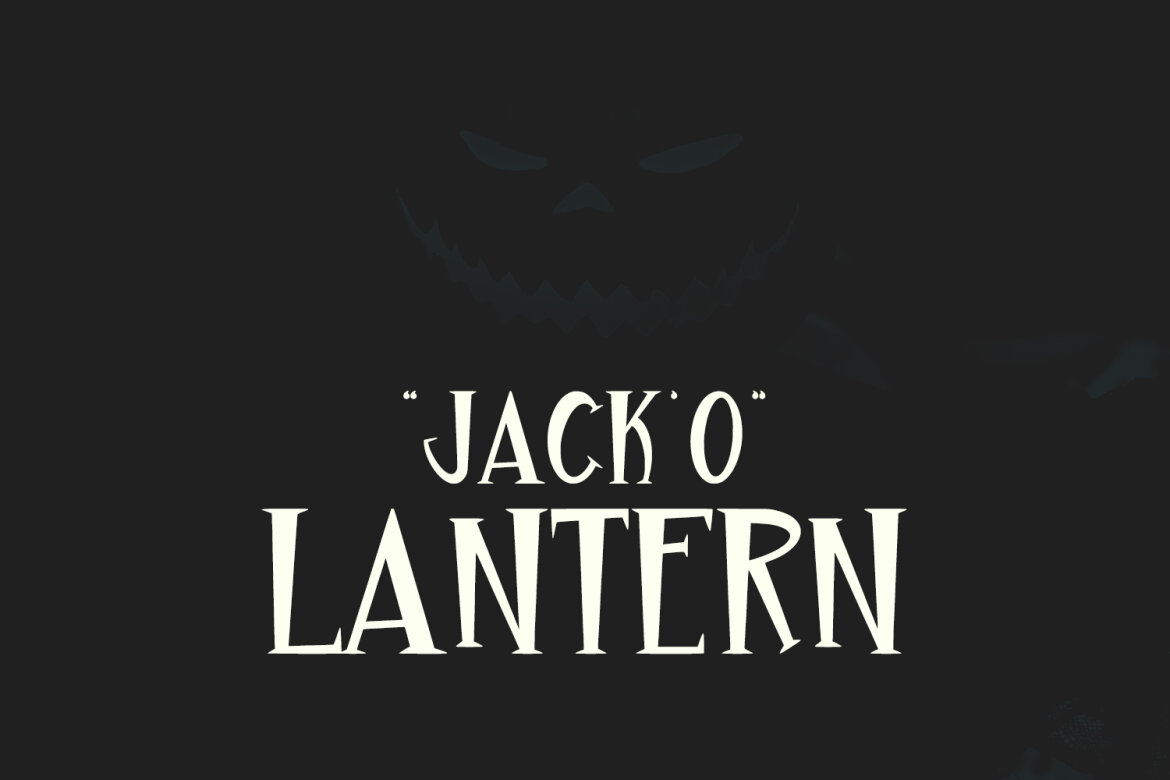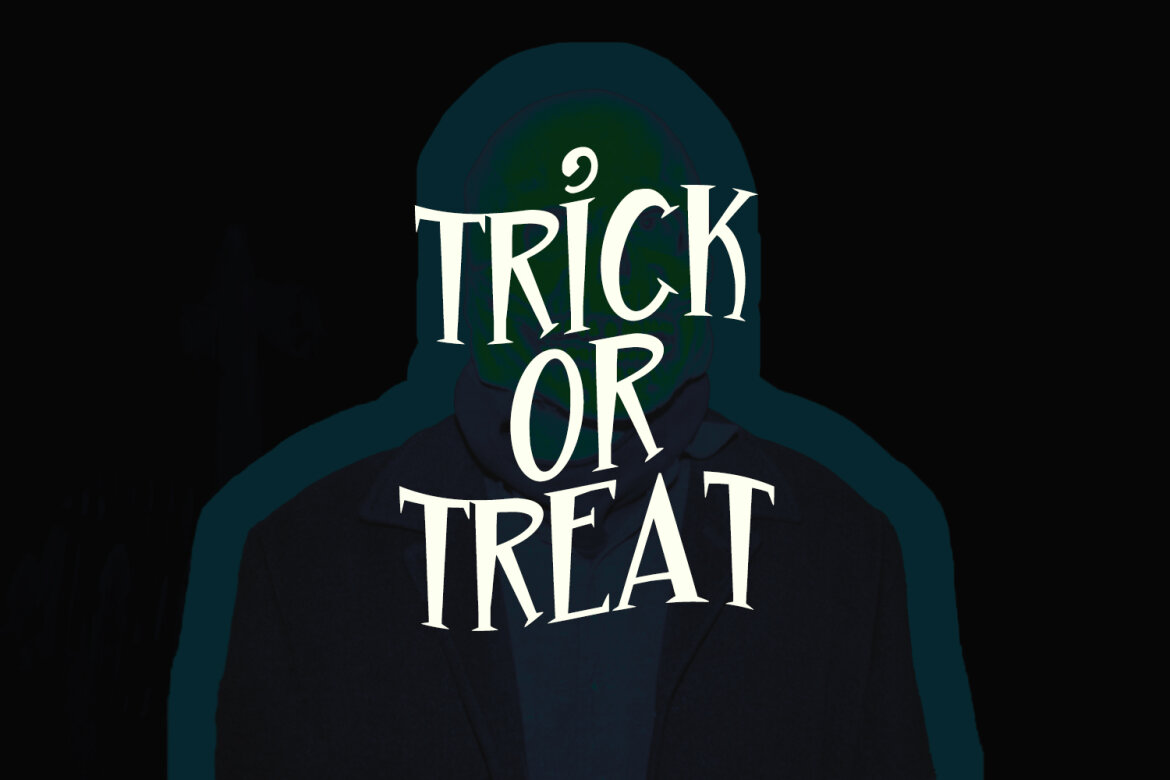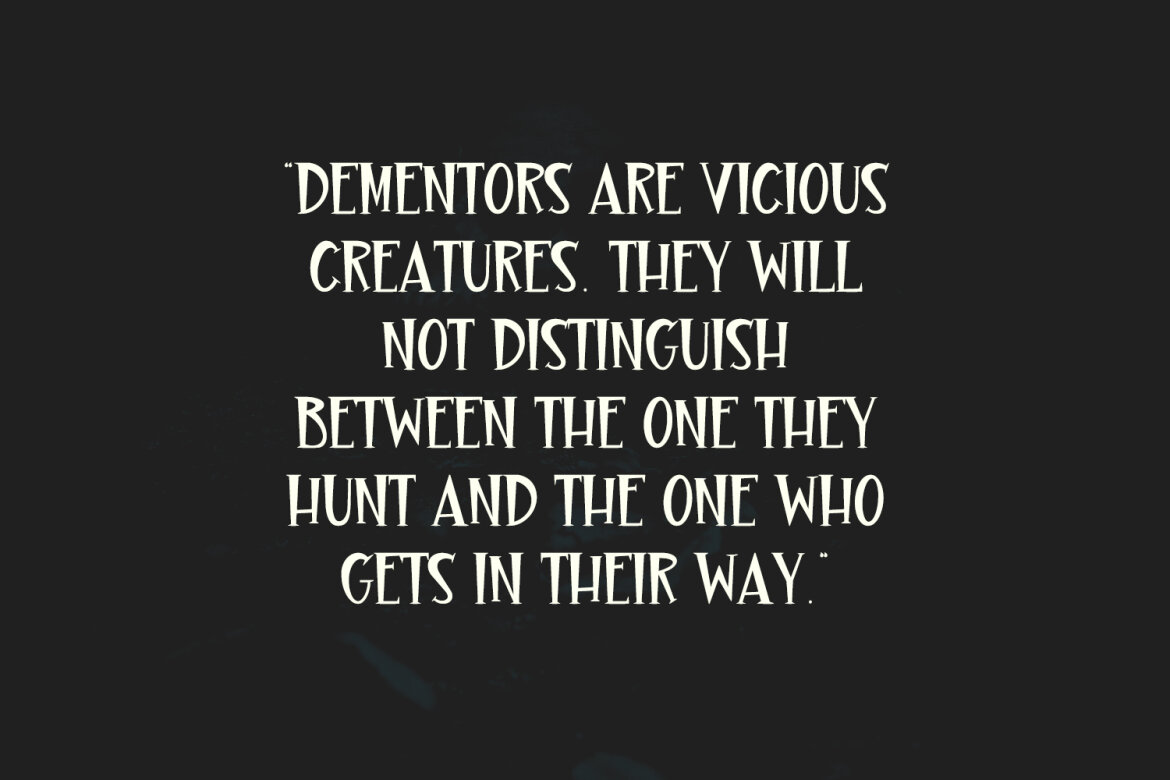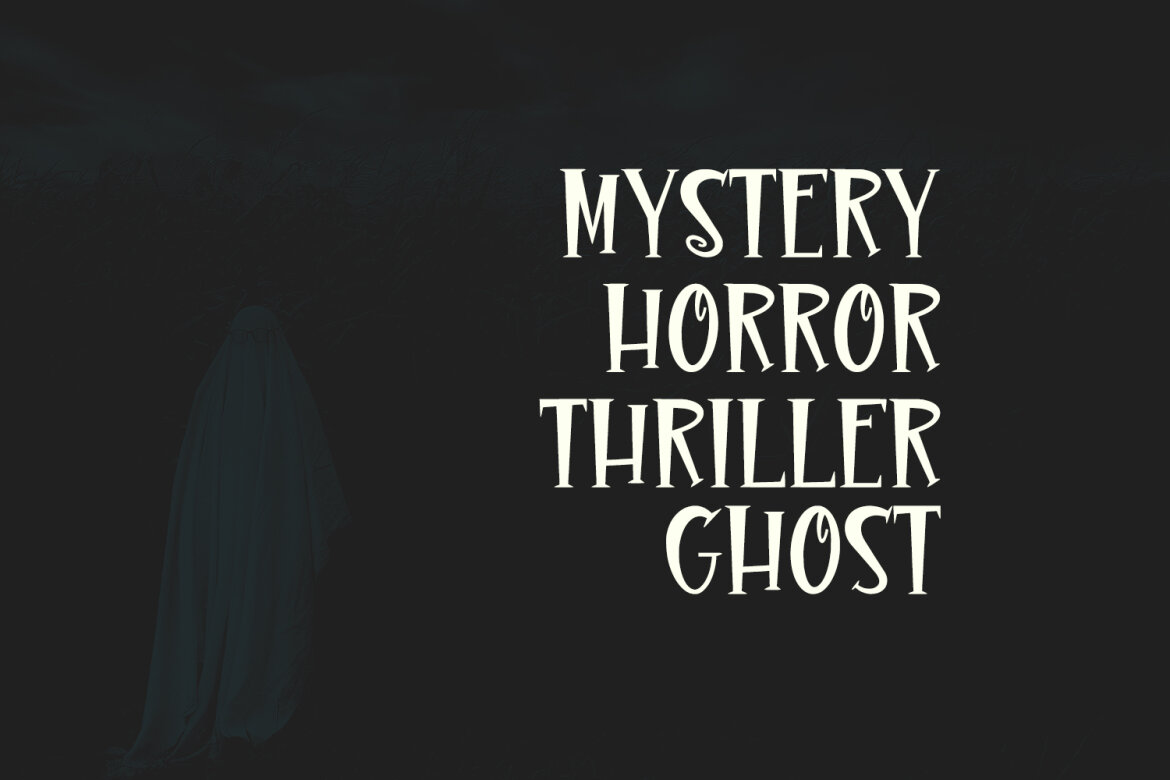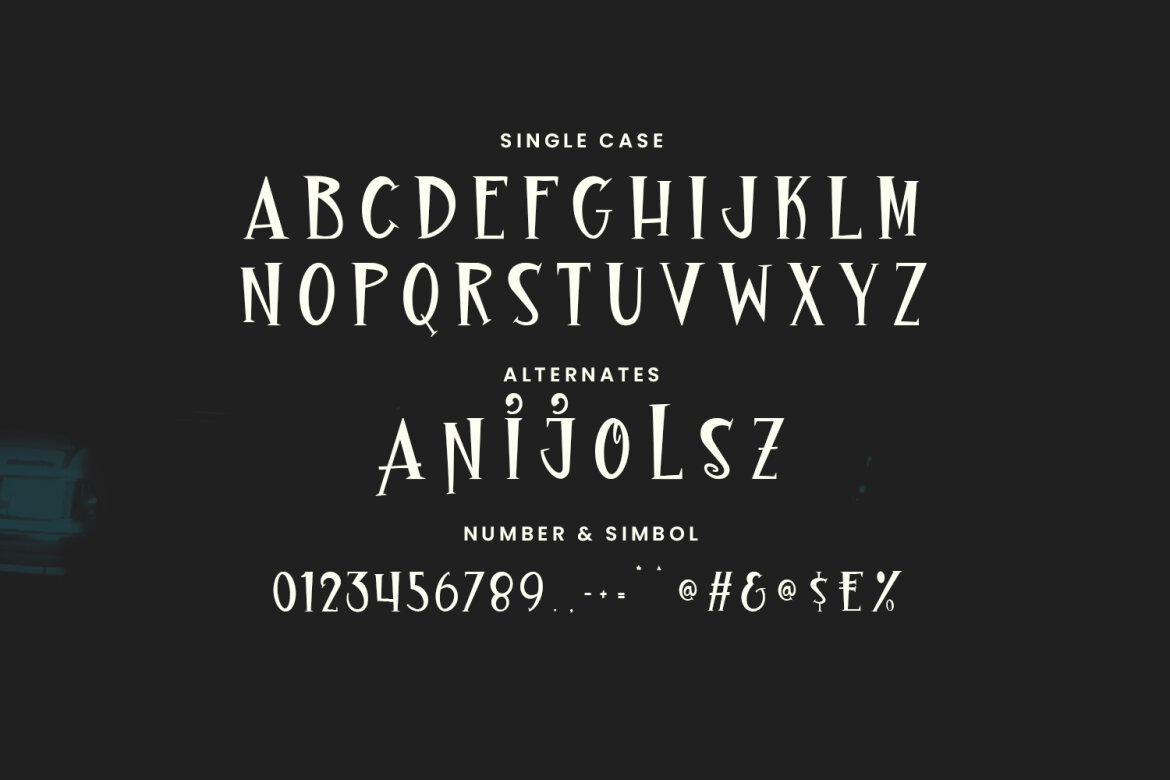
Nabir House FREE Display Font
Nabir House is a vintage horror decorative display font. Bold stroke, fun character with a bit of ligatures and alternates. To give you an extra creative work. Nabir House font support multilingual more than 100+ language. This font is good for logo design, Social media, Movie Titles, Books Titles, a short text even a long text letter and good for your secondary text font with script or serif. Make a stunning work with Nabir House font.